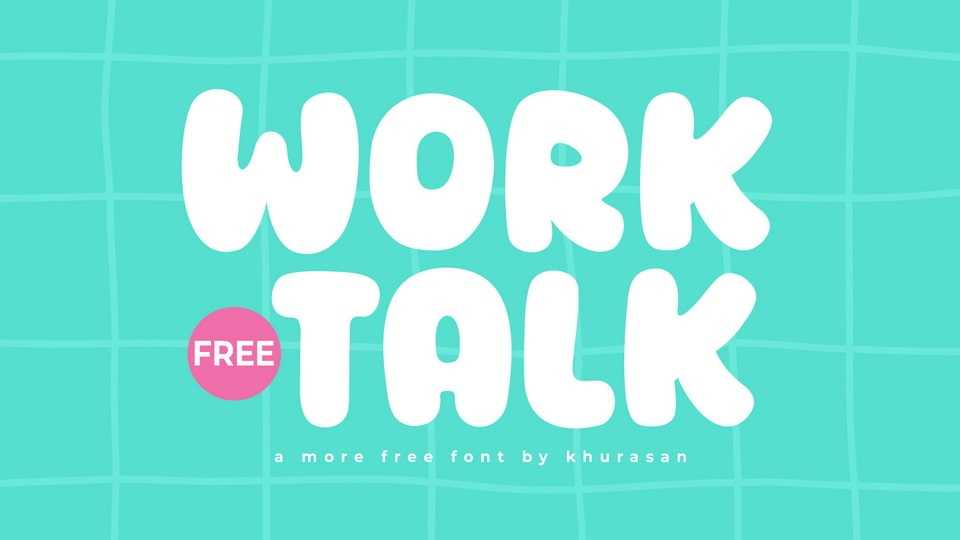
Download Worktalk is a bold, bubbly display font packed with personality. Its thick, rounded shapes and soft edges make it instantly approachable and fun.